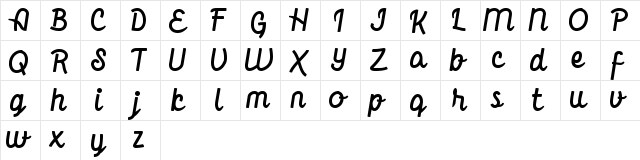
Breath DEMO Regular
| Designer | Trim Studio |
Design Context for Breath DEMO Typeface
Breath DEMO is a composed and adaptable typeface that performs quietly and consistently across a wide range of design contexts.